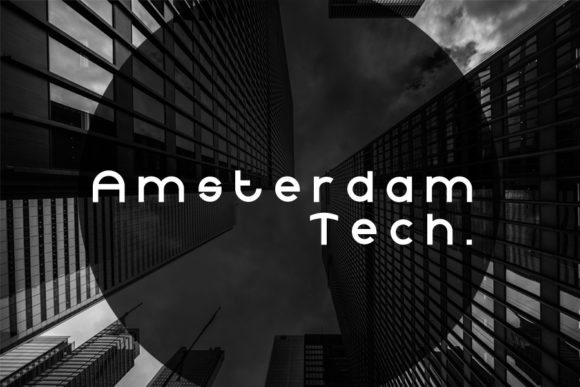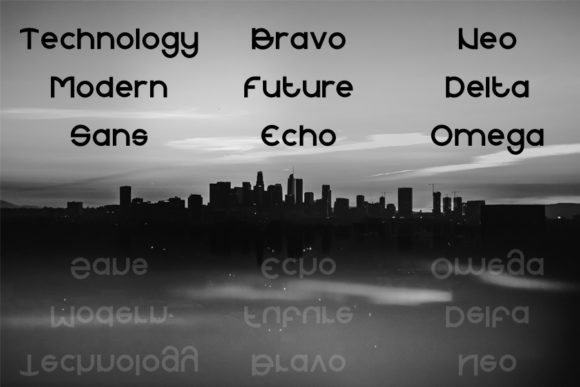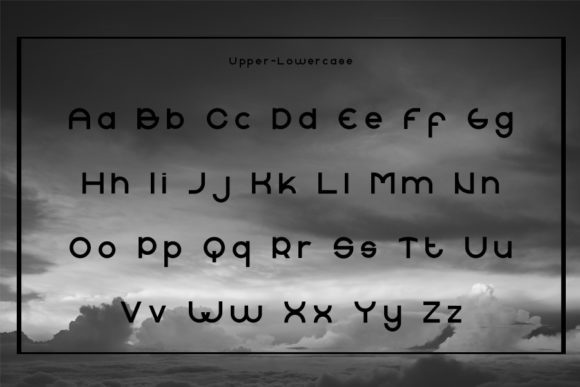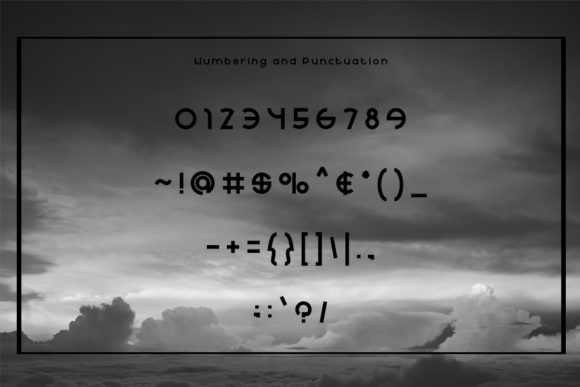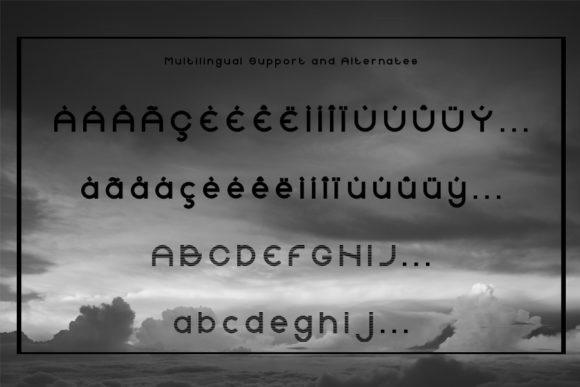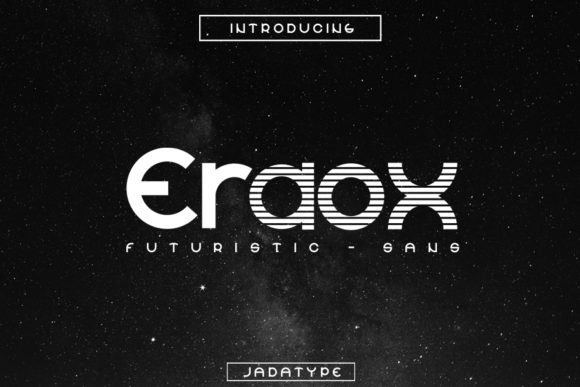
Introducing Eraox Font: The Futuristic Display Font for Modern Designers
In the world of typography, fonts play a crucial role in conveying the message and tone of a design. With the ever-evolving landscape of graphic design, it’s essential to stay ahead of the curve with fresh and innovative fonts. Eraox Font is a game-changing, futuristic display font that’s making waves in the design community. In this article, we’ll dive into the features, benefits, and uses of Eraox Font, and explore why it’s a must-have for designers and crafters.
What is Eraox Font?
Eraox Font is a cutting-edge, futuristic display font designed to make a statement. Its unique and modern style sets it apart from traditional fonts, making it perfect for attention-grabbing applications. With its sleek lines, geometric shapes, and avant-garde aesthetic, Eraox Font is ideal for designs that require a bold and futuristic look.
Key Features of Eraox Font
- Unique and Modern Style: Eraox Font boasts a distinctive and contemporary design that will elevate your projects and set them apart from the crowd.
- PUA Encoded: Eraox Font is PUA (Private Use Area) encoded, which means you can easily access all the glyphs and swashes, giving you maximum creative control.
- Multipurpose: This versatile font is suitable for a wide range of applications, including flyers, games, posters, and more.
Benefits of Using Eraox Font
So, why should you choose Eraox Font for your next project? Here are just a few benefits of using this exceptional font:
- Add a Futuristic Touch: Eraox Font’s futuristic design will instantly add a cool, high-tech feel to your projects, making them stand out in a crowded design landscape.
- Ease of Use: With PUA encoding, you can effortlessly access all the glyphs and swashes, streamlining your design process and saving you time.
- Versatility: Eraox Font’s multipurpose design makes it suitable for various applications, from print materials to digital projects.
Who Can Benefit from Eraox Font?
Eraox Font is a valuable asset for a wide range of designers and crafters, including:
- Graphic Designers: Add a futuristic touch to your brochures, posters, and flyers with Eraox Font.
- Game Developers: Use Eraox Font to create engaging and immersive gaming experiences.
- UI/UX Designers: Incorporate Eraox Font into your digital projects, such as websites, apps, and mobile interfaces.
- Crafters and Artists: Eraox Font is perfect for crafters and artists looking to add a modern, edgy touch to their projects.
In conclusion, Eraox Font is a revolutionary, futuristic display font that’s perfect for designers and crafters looking to add a modern touch to their projects. With its unique style, PUA encoding, and multipurpose design, Eraox Font is an excellent choice for a wide range of applications. Whether you’re a graphic designer, game developer, or crafter, Eraox Font is a must-have font that will elevate your designs and help you stand out in a competitive design landscape.